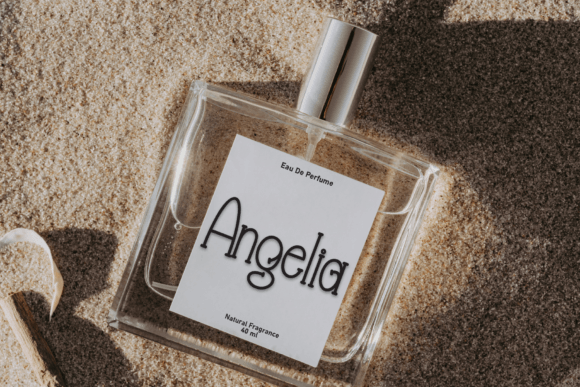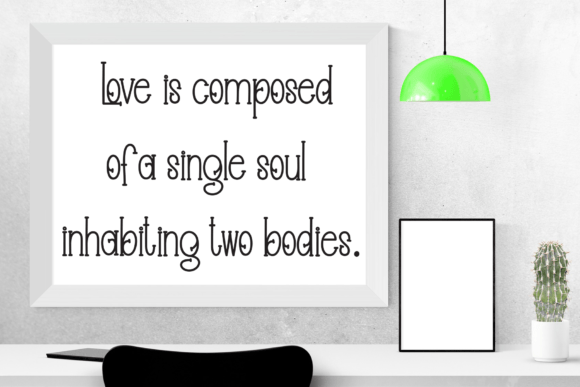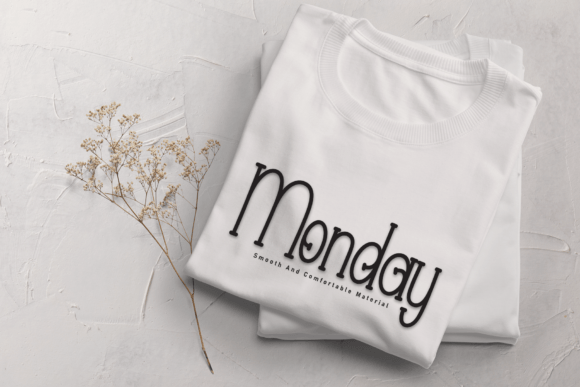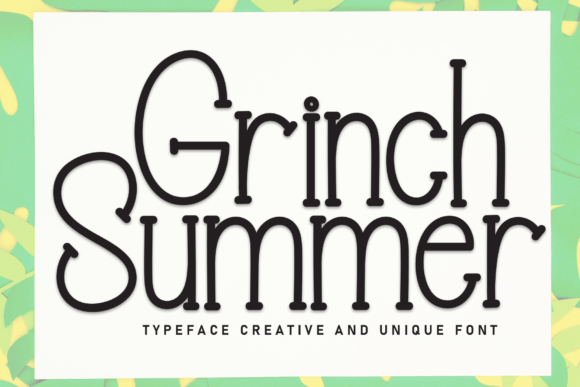
Introduction to Grinch Summer Font
Grinch Summer is a casual handwritten font that brings a relaxed and playful vibe to any project.
Its bold, approachable letterforms make it perfect for headlines, posters, and branding The font’s easygoing style effortlessly captures a sense of fun and spontaneity, enhancing any creative work.